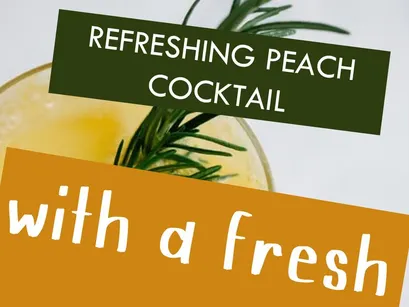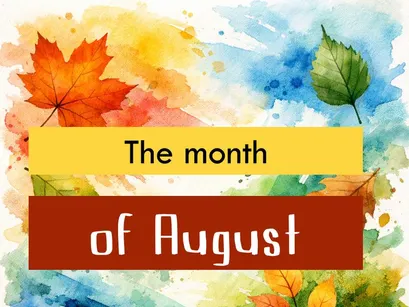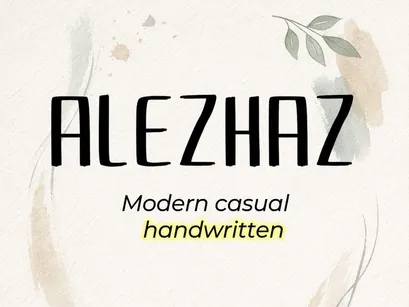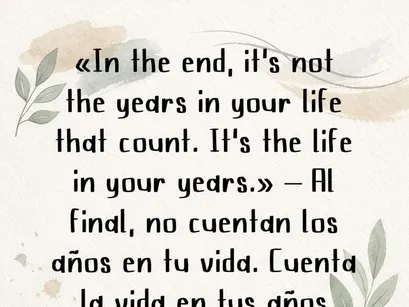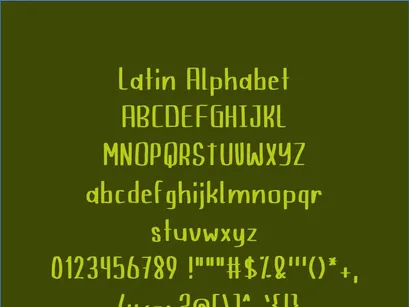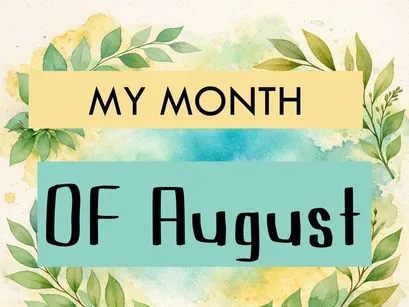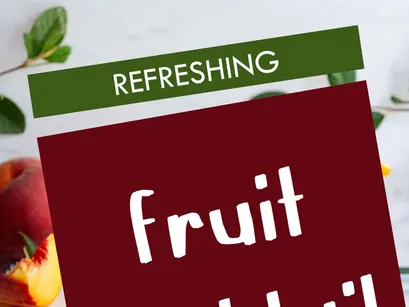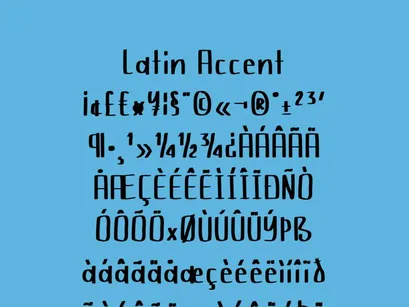
ALEZHAZ is a modern, casual, handcrafted typeface designed to strike a balance between elegance and natural charm. Its firm, slightly condensed stroke makes it perfect for headlines, inspirational quotes, agendas, planners, and design projects with a human touch.
Each letter retains the essence of a hand-drawn stroke, adding authenticity and warmth to your designs.
Style: Modern, casual handwritten
Full set of uppercase and lowercase letters
Support for accents and Latin characters
Ideal for branding, packaging, covers, and digital lettering